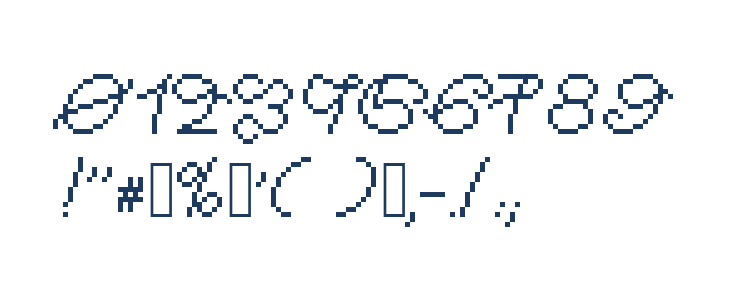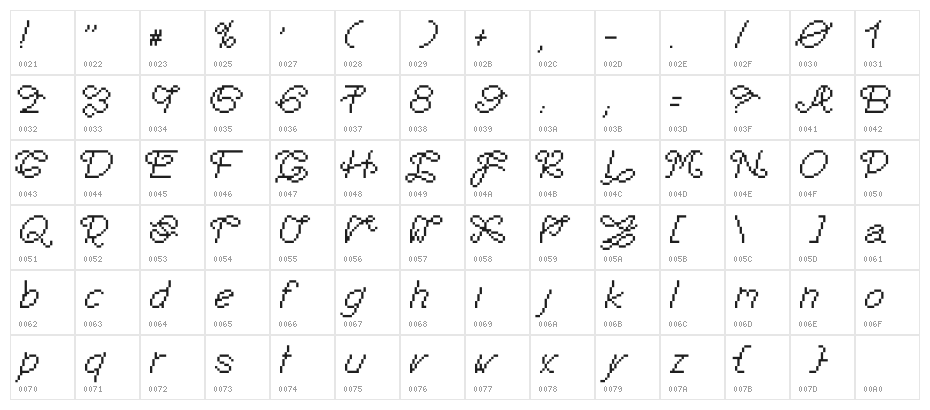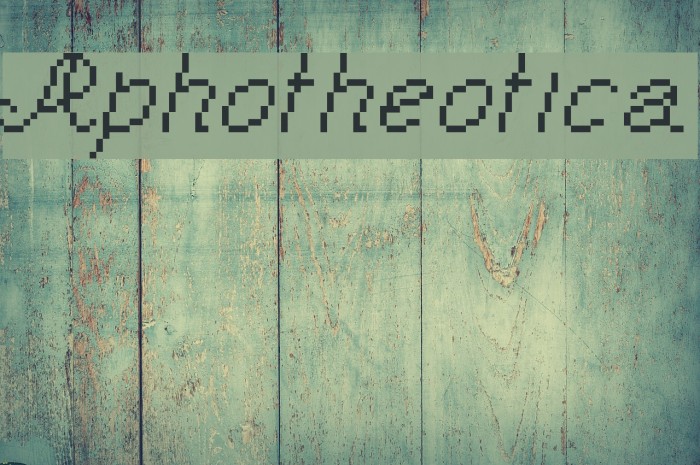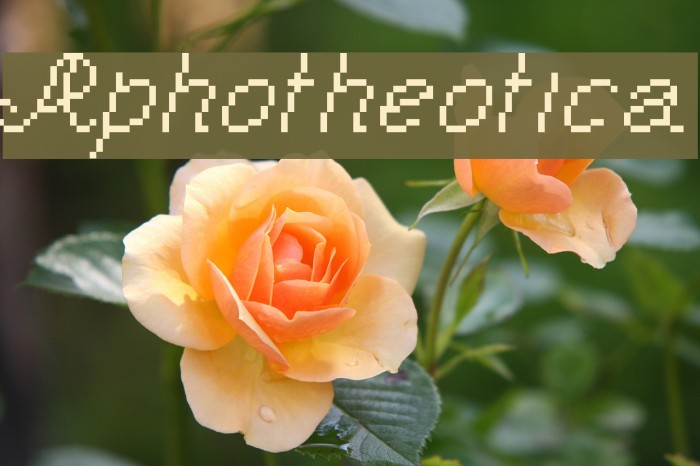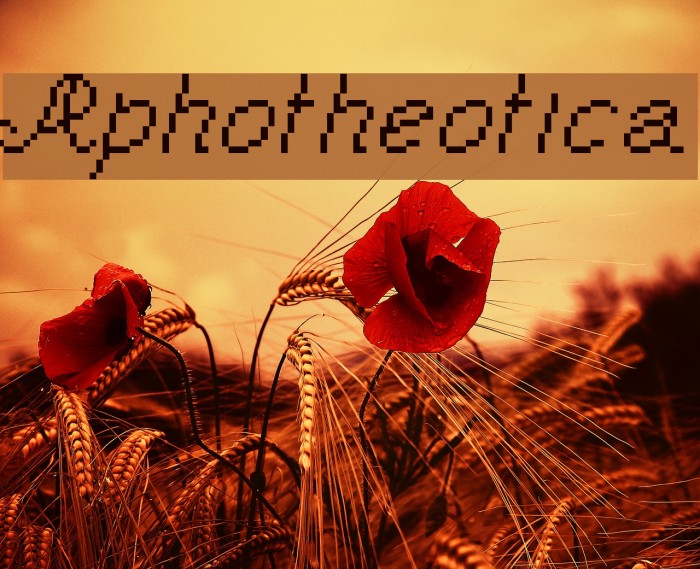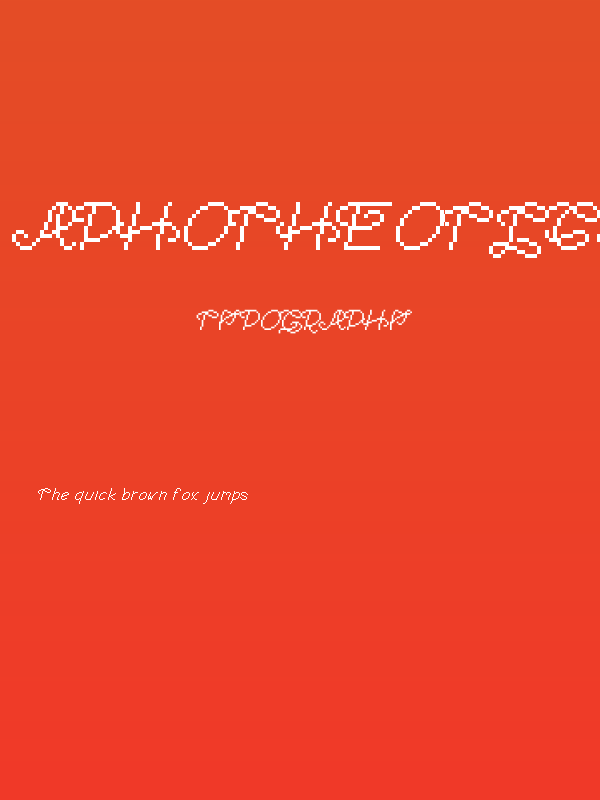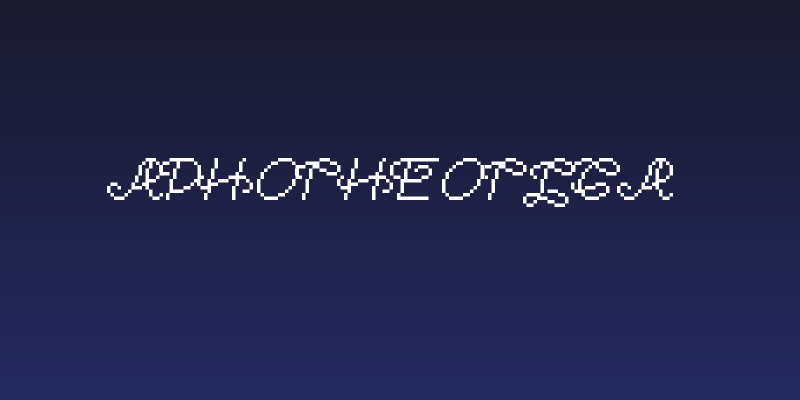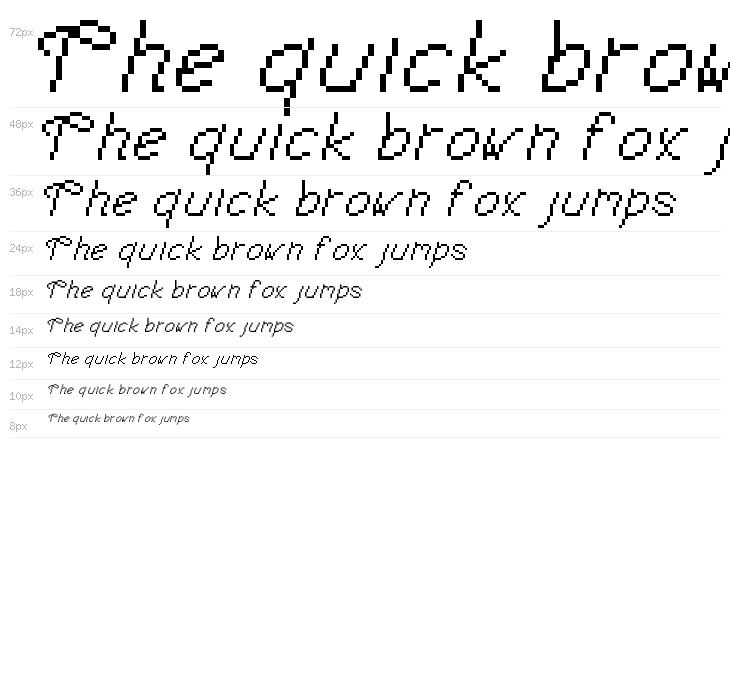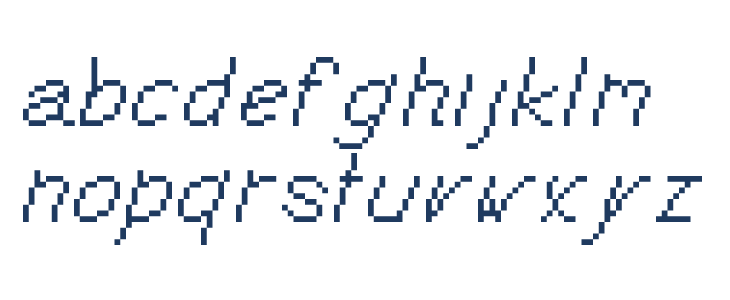
Aphotheotica Font
Aphotheotica Description
This font features a unique blend of decorative and modern styles, with uppercase letters displaying an intricate, curly design that adds a whimsical touch. The lowercase letters are more straightforward, maintaining a clean and readable appearance. Numbers and special characters follow the same pattern, balancing decorative elements with practicality. The font's overall design is both playful and sophisticated, making it suitable for creative projects that require a touch of elegance.
| Use Case | Headlines, Logos, Artistic projects |
| Proposed Projects | Ideal for invitations, greeting cards, branding, and artistic projects that require a decorative flair. |